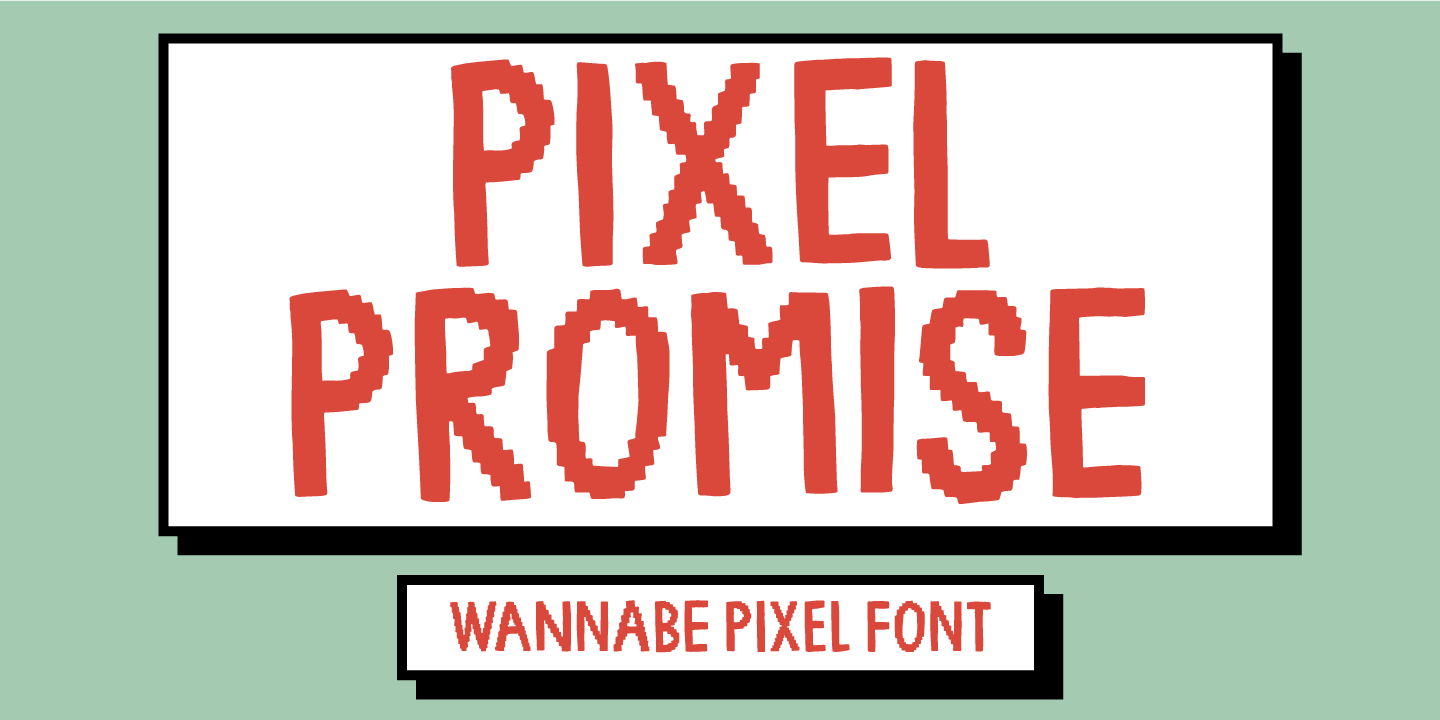
Pixel Promise Font is perfect for retro gaming interfaces, 8-bit style branding, nostalgic video game marketing, pixel art projects, tech startup identity, digital art exhibitions, arcade game promotions, indie game development, vintage computer aesthetics, and nostalgic technology campaigns. This distinctive typeface works exceptionally well for gaming companies, tech startups, digital artists, and creative businesses that want to communicate retro-tech nostalgia, gaming heritage, and pixelated charm in their visual communications.
What makes Pixel Promise Font exciting is its perfect capture of classic 8-bit gaming aesthetics combined with modern design functionality. The precisely crafted letterforms feature authentic pixel-perfect construction, nostalgic character, and retro-gaming appeal that instantly evokes memories of classic arcade games and early computer graphics. Each character has been meticulously designed with pixel-perfect accuracy and gaming authenticity that ensures excellent screen readability while maintaining distinctive retro-digital personality. The font's nostalgic character makes it ideal for brands that want to communicate tech heritage, gaming passion, and the timeless appeal of pixel-perfect design.
The Pixel Promise Font family includes multiple retro variations featuring 8-bit, 16-bit, Bold Pixel, and Smooth Pixel styles with additional gaming-inspired elements and arcade alternates. Each style maintains the font's characteristic pixel authenticity while providing different levels of resolution and visual impact. The complete family ensures brand consistency across all digital materials while giving designers the flexibility to create engaging layouts that capture the nostalgic energy and retro-gaming spirit of classic digital aesthetics.
Professional designers and gaming industry specialists will appreciate how Pixel Promise Font Free Download transforms modern projects with authentic retro-gaming appeal. Whether you're designing for gaming brands, tech companies, or nostalgic digital experiences, this font delivers exceptional performance in creating memorable pixel-perfect impressions. The precise character construction and authentic styling make it particularly effective for user interfaces, gaming graphics, and digital content where retro authenticity matters most.
The versatility of Pixel Promise Font extends across numerous digital and gaming design applications. It works exceptionally well in game development, tech branding, digital art projects, retro marketing campaigns, and nostalgic advertising. The font's pixel-perfect presence makes it ideal for brands targeting gamers, tech enthusiasts, and audiences appreciating retro-digital aesthetics and gaming heritage.
For designers seeking a font that embodies retro-gaming authenticity with pixel-perfect precision, Pixel Promise Font represents the ultimate nostalgic choice. Its authentic pixelated appearance suits gaming and tech brands while maintaining excellent functionality across all digital media. The font's grid-based baseline and precise proportions create striking visual hierarchies that celebrate gaming heritage and communicate authentic retro-digital appeal.